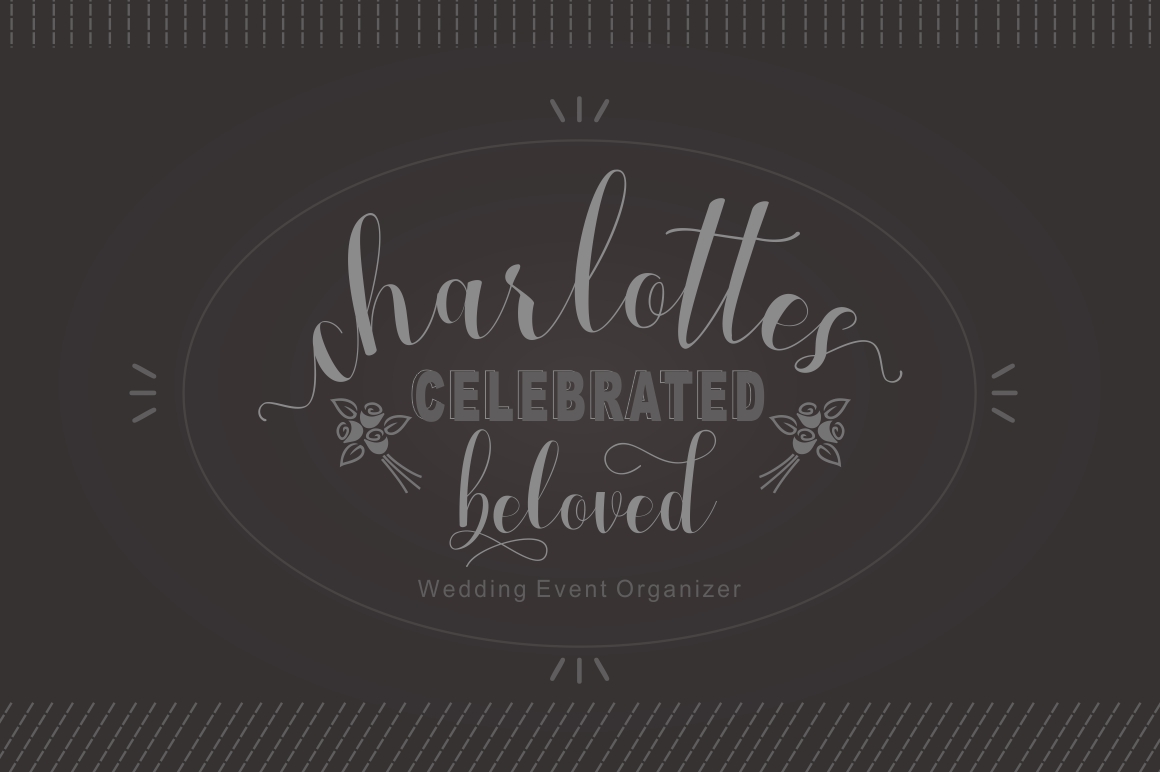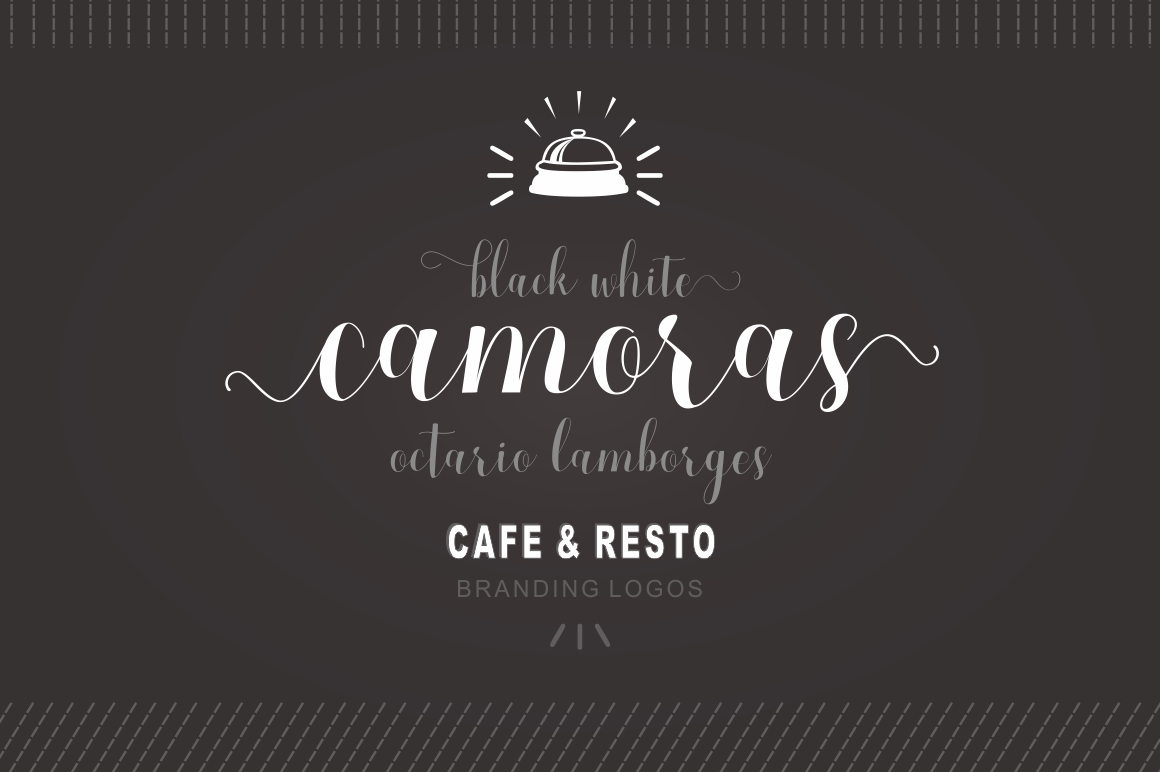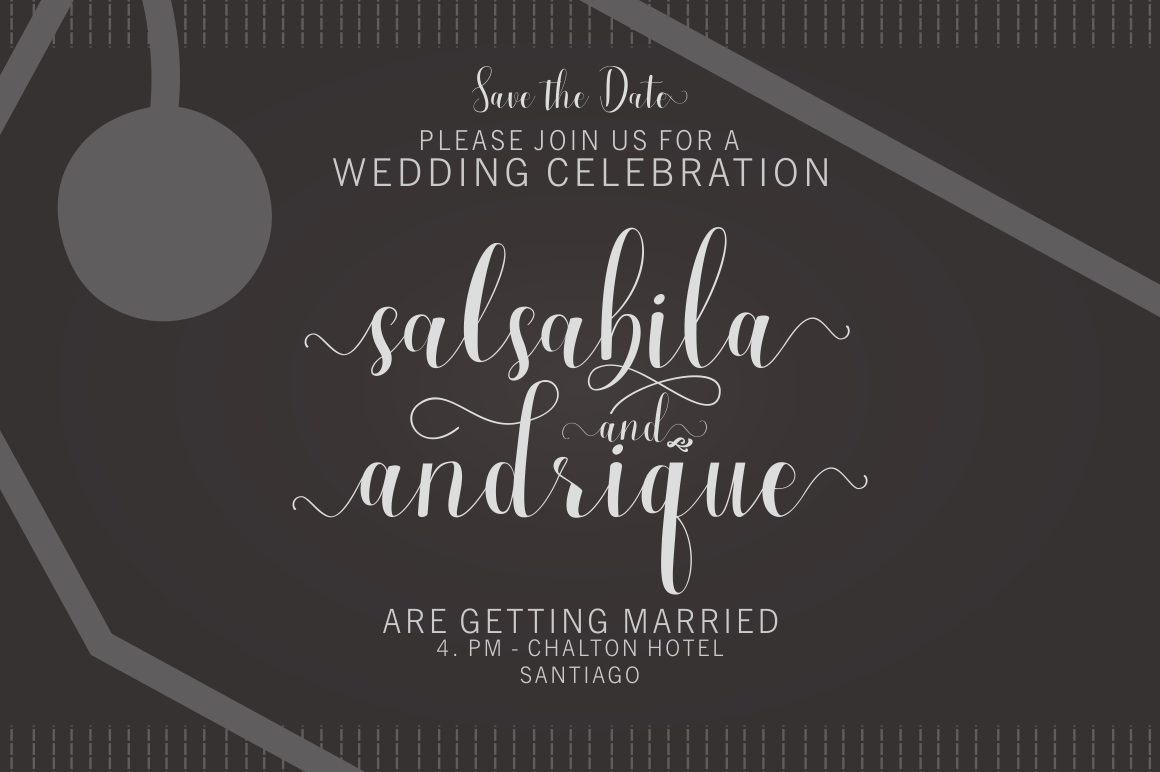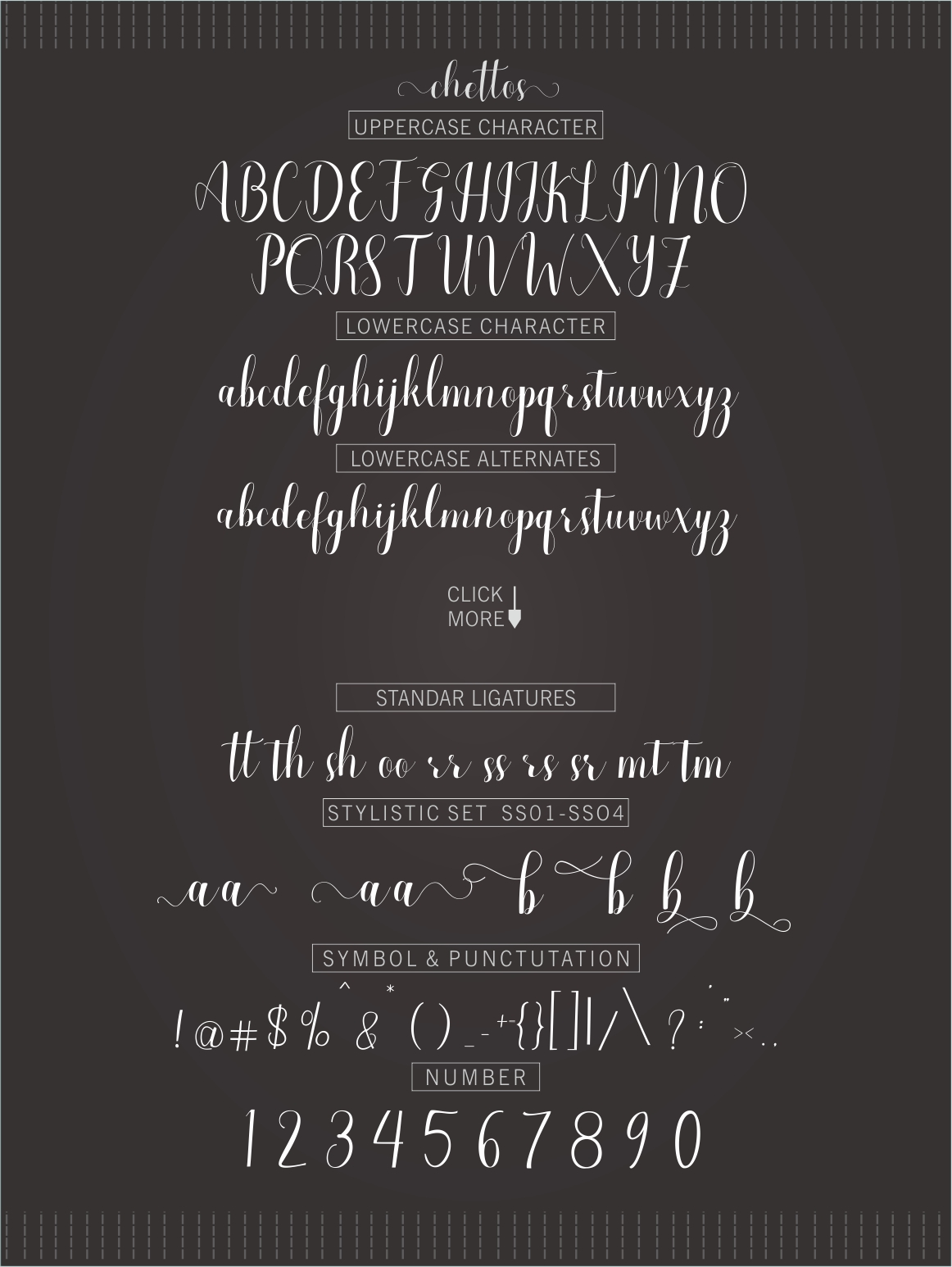
HomeScript FontsChitos Font Script Fonts Chitos Font FacebookXPinterestWhatsApp Chitos Font Poster 2 Chitos Font Poster 3 Chitos Font Poster 4 Chitos Font Poster 5 About Chitos Font Chitos is a hand lettered calligraphy font with a natural flow. It features over 250 unique glyphs. DOWNLOAD ON CREATIVE FABRICAThis font is sold and delivered by Creative Fabrica. Font Canyon may earn a commission if you buy through this link. People also explored Mentimun Font Santaclaus Font Openla Faithful Font Metal Lord Giovani Font Years Font Baronk Font Xoxo Vo One Font 350 0 TagsChitos Font Previous articleMobile FontNext articleEmainell Font LEAVE A REPLY Cancel reply Comment: Please enter your comment! Name:* Please enter your name here Email:* You have entered an incorrect email address! Please enter your email address here Website: Save my name, email, and website in this browser for the next time I comment. Personal Use Free Mika Personal Use Free Read more about this font Elevate Your Halloween Designs with 500 Free High-Quality PNG Clipart Files Personal Use Free Read more about this font Pompom Personal Use Free Read more about this font Antaro Personal Use Free Read more about this font BLOG Transform Your Website: Elevate Your Typography with 7 Best Web Font Generators Are you ready to transform your website's typography from ordinary to extraordinary? Great! Today, we're diving into the world of web font generators, which... Top 7 Google Fonts Alternatives for Faster and Privacy-Friendly Web Design (2025) How to Install and Use Fonts on Windows, macOS, and Web Projects Free vs Paid Fonts: Why Investing in Premium Fonts Is Worth It